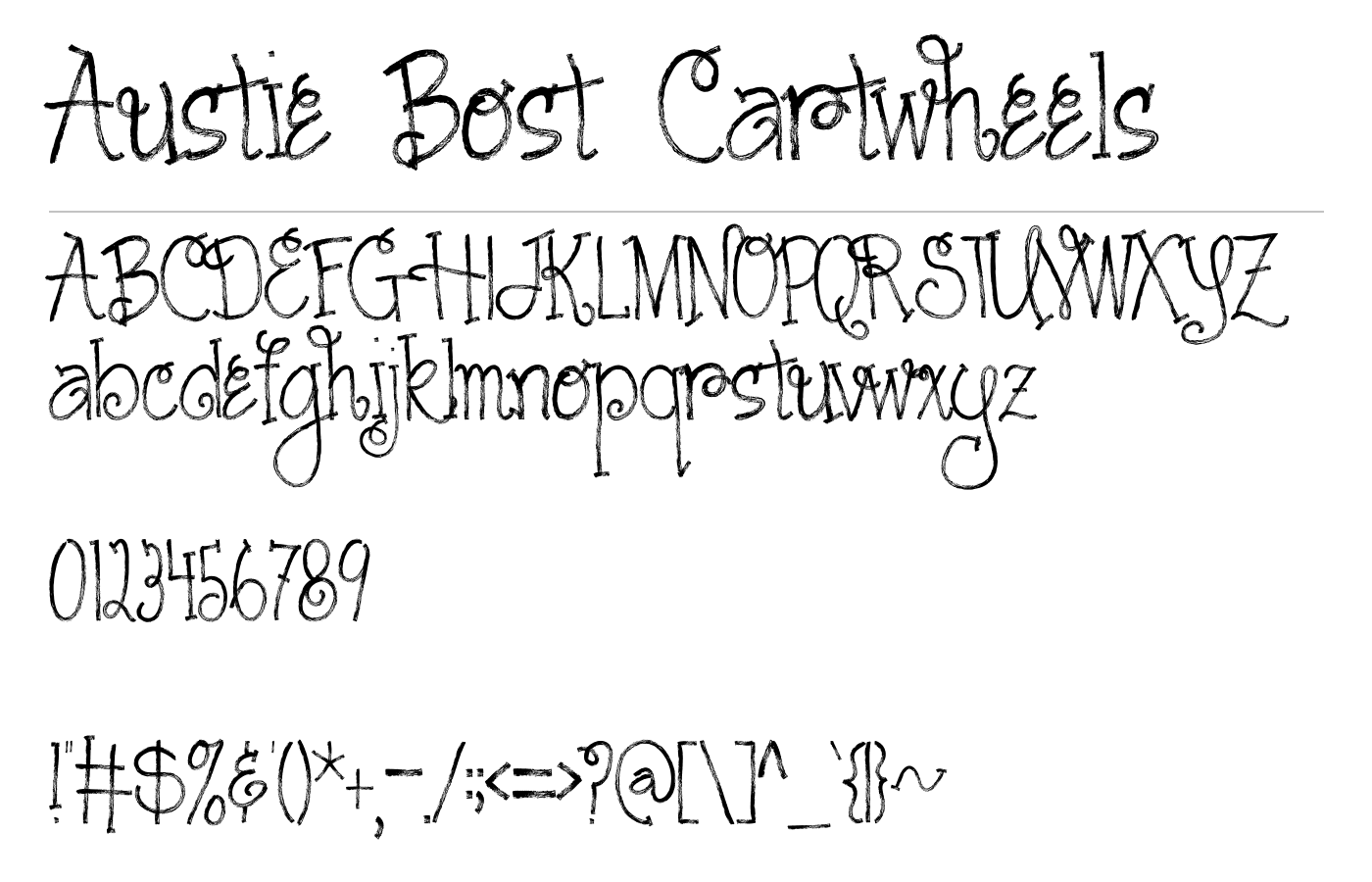
Austie Bost Cartwheels is an expressive, whimsical handwritten font with playful, curly strokes that give it a childlike and artistic feel. Its uneven lines and quirky letterforms make it ideal for creative projects that seek a fun, informal vibe, such as greeting cards, children's books, and casual branding. This font works best for headlines or decorative text where personality and charm are key.
Austie Bost Cartwheels Font
About Austie Bost Cartwheels Font
| Font family | Austie Bost Cartwheels Font |
| Designer | Austin Owens |